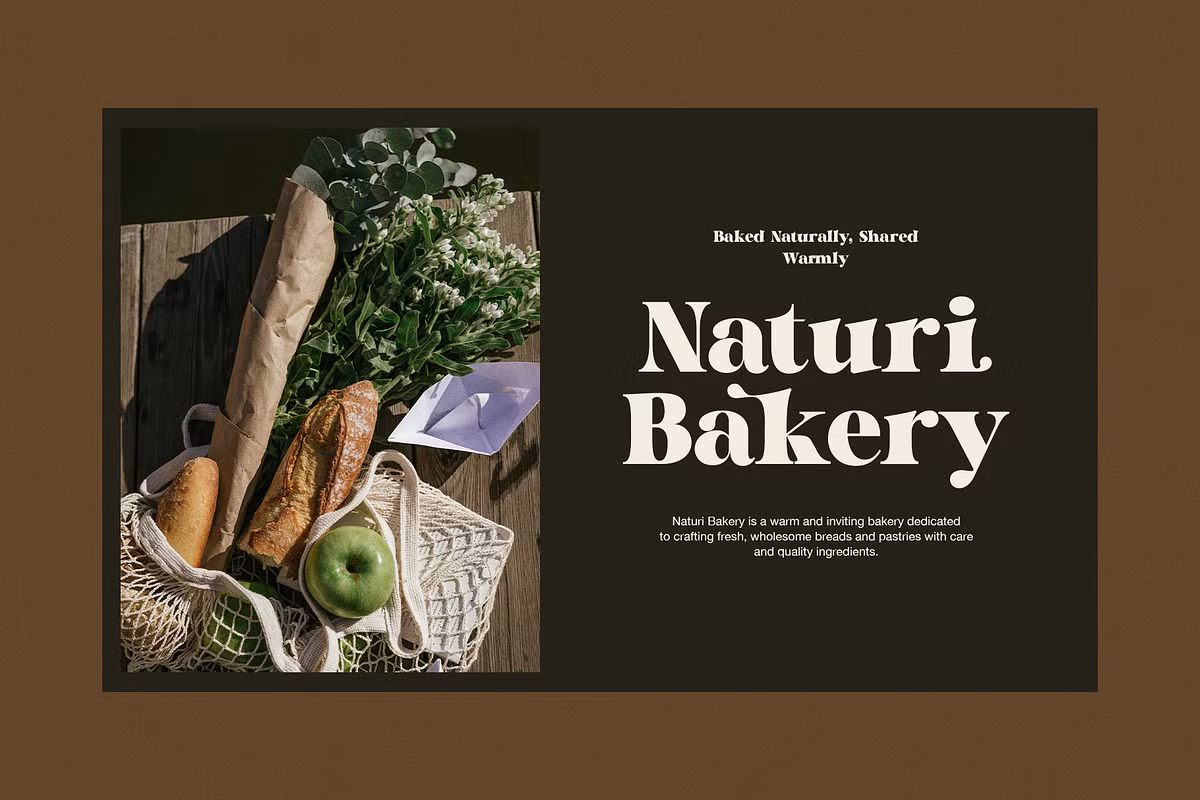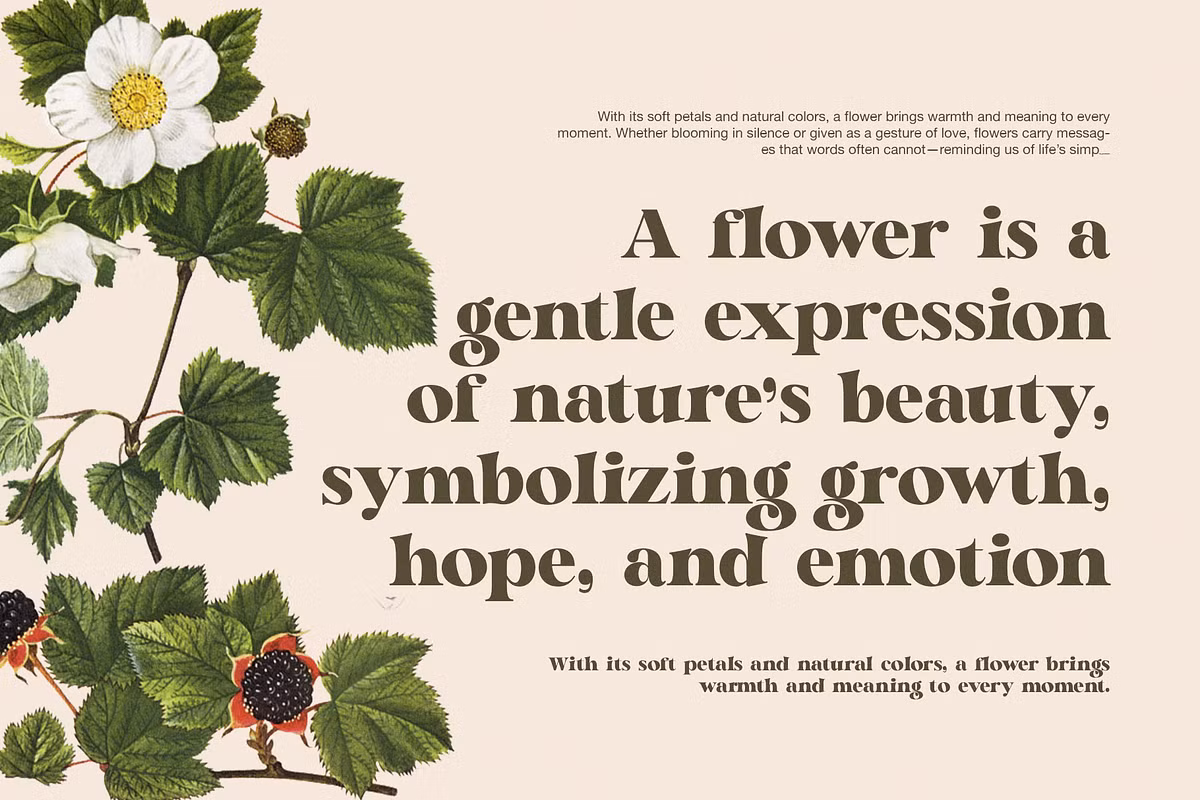
Magil Elegant Serif Font: Timeless Typeface for Editorial and Lifestyle Branding
Magil Elegant Serif Font
Magil Elegant Serif Font: Timeless Typeface for Editorial and Lifestyle Branding
Introducing the Magil Elegant Serif Font
The Magil font is really nice, it’s elegant and easy to read. It’s great for things like magazines and lifestyle brands because it’s clear and pretty. The people who made it were inspired by old-fashioned typography and the shapes you see in nature, so it looks classic but also fresh. You can use it for printed things or for digital stuff, and it works well either way. It’s like a mix of old and new, which makes it perfect for lots of different design projects.
The font has a warm feel to it, which makes you want to keep looking at it. It’s also very versatile, so you can use it for lots of different things. Overall, Magil is a great choice if you want a font that’s both beautiful and easy to use.
Elegant serif font display showcasing the Magil typeface
Magil font displayed in an elegant setting
Design Style of Magil
Magil’s design is really special because it combines a classic, elegant look with soft, curved lines. The way it balances old and new elements creates a sense of calmness when you look at it. This makes it perfect for headlines and big text – it’s confident, but not too much.
The letters in Magil are designed to be smooth and easy to read, even when you have a lot of text. That’s what makes this font so great: it’s not just beautiful, it’s also really useful for lots of different things. The mix of classic and modern elements gives Magil a unique feel that’s both stylish and easy to use.
Key Features of Magil’s Design
• Elegant Serif Style: The classic serif characteristics reflect sophistication and a timeless quality.
• Soft Contrast: The gentle contrast in stroke weight creates a serene visual experience.
• Refined Ligatures: These ligatures help create a natural flow in typography, enhancing the overall reading experience.
• Stylish Alternates: Unique alternates allow for creative expression while maintaining an elegant appearance.
Visual representation of Magil's elegant design features
Showcasing the elegant design features of Magil
Character Sets and Typography
Magil has a big set of characters that are really good for making things look strong and important, like titles and headings. The small letters are made to look friendly and easy to talk to, which makes them great for writing big blocks of text that people will want to read.
It also has all the numbers and punctuation marks you need, so you can use it for lots of different things.
Uppercase and Lowercase Design
Magil’s uppercase letters are really effective for logos and big titles because they stand out and grab your attention. But the lowercase letters are soft and friendly, making them perfect for regular text. This mix of styles means Magil can work well for lots of different brands, like a fancy fashion brand or a cozy coffee shop.
The way it balances strong and gentle elements makes it super versatile. You can use it to create a bold impression or a more subtle one, depending on what you need. Overall, Magil is a great choice for anyone looking for a font that can adapt to their unique style and branding needs.
Examples of uppercase and lowercase design in Magil font
Examples of Magil’s uppercase and lowercase letters
Use Cases for Magil
The Magil font is really versatile, which makes it great for lots of different design projects. It looks good in all sorts of situations, giving designers the freedom to try out different branding ideas. Here are a few examples of where Magil works really well:
• Cafes and Bakeries: Magil has a warm and welcoming feel that makes it a great fit for cafes and bakeries. It’s perfect for creating menus and signs that make people feel all cozy inside.
• Lifestyle Products: Whether you are designing packaging for artisanal goods or branding for wellness products, Magil adds a touch of elegance.
• Magazines: Magil is a great font for magazines and other publications with a lot of text. It’s easy to read and looks nice, making it perfect for things that need to be stylish but not too fancy.
• Fashion Ateliers: The stylish appearance of Magil aligns perfectly with the fashion industry, enhancing branding and promotional materials.
Using this font can make your social media posts look really nice and stylish, which is great for grabbing people’s attention. It’s elegant, but also modern, so it can fit in with lots of different types of campaigns and make your posts stand out.
Pairing Suggestions for Magil
When using the Magil font, it’s essential to consider how it pairs with other typefaces to create a cohesive design. Here are some recommended pairings:
• Using Magil with a simple, sans-serif font like Montserrat or Open Sans can make your design look great. It’s a good combination for websites and brands because it’s modern and easy to read.
With Magil, designers can create things that are not only pretty but also have a lot of personality and feeling. It’s a versatile font that can be used in many ways, from simple designs to more complex projects, and it’s a great option for anyone who wants to add some elegance and sophistication to their work.